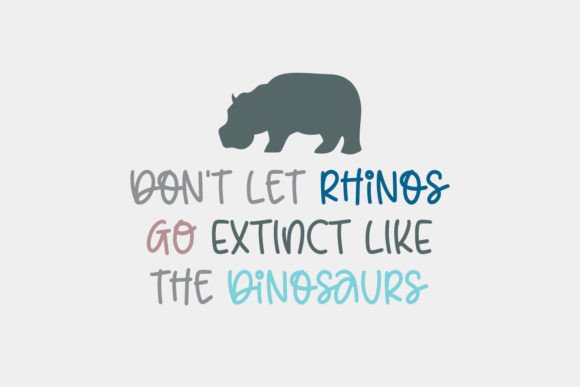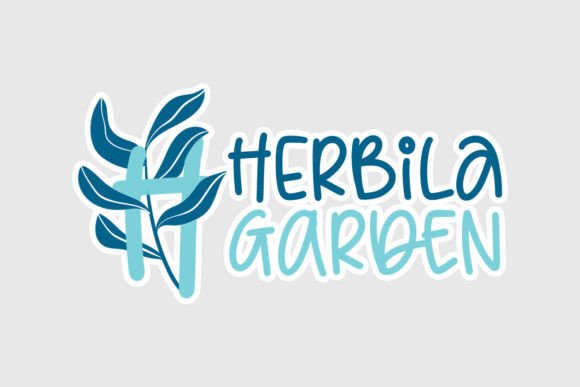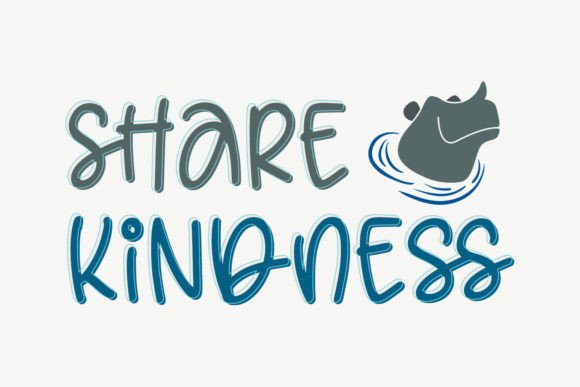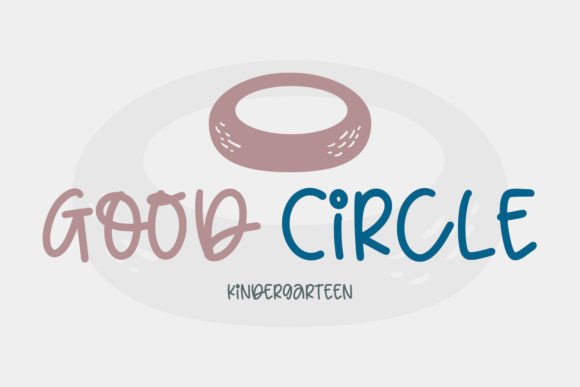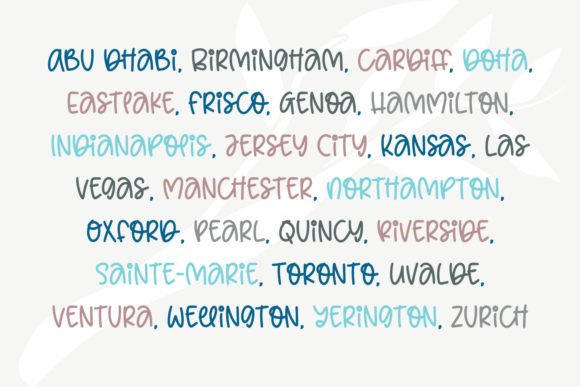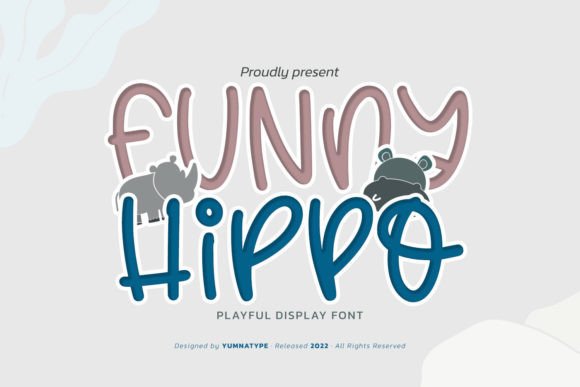
Introducing Funny Hippo: The Playful Font That’s Making Waves in Design
Are you tired of using the same old fonts in your designs? Look no further than Funny Hippo, a casual display font that’s sure to add a touch of whimsy to your projects. With its smooth, round, curvy accents and dynamic lines and angles, Funny Hippo is the perfect choice for designers and crafters looking to add some personality to their work.
The Characteristics of Funny Hippo
So, what makes Funny Hippo so special? For starters, its smooth, round, curvy accents give it a friendly and approachable feel that’s perfect for designs that need to be fun and engaging. The dynamic lines and angles add a sense of energy and movement, making Funny Hippo a great choice for projects that need to grab attention. And with various letter proportions, Funny Hippo has a unique and original look that’s sure to set it apart from other fonts.
Funny Hippo is a versatile font that’s perfect for a wide range of design projects. Whether you’re a professional designer or a crafter looking to add some personality to your handmade goods, Funny Hippo is a great choice. Its casual, display style makes it perfect for use in titles, headings, and other large-format text, while its smooth, curvy accents make it a great choice for use in logos, branding, and other visual identity projects.
What Can You Use Funny Hippo For?
The possibilities are endless when it comes to using Funny Hippo in your designs. Here are a few ideas to get you started:
• Party invitations and decorations: Add a touch of whimsy to your party invitations and decorations with Funny Hippo. Its fun, playful style is perfect for kids’ birthday parties, baby showers, and other celebrations.
• Branding and logos: Use Funny Hippo to create a unique and memorable logo for your business or brand. Its smooth, curvy accents make it a great choice for use in food, fashion, and lifestyle branding.
• Social media graphics: Add some personality to your social media graphics with Funny Hippo. Its dynamic lines and angles make it a great choice for use in Facebook posts, Instagram stories, and other social media graphics.
• Handmade goods: If you’re a crafter or maker, Funny Hippo is a great choice for adding a personal touch to your handmade goods. Use it to create custom labels, packaging, and other branding elements that will make your products stand out.
Why Choose Funny Hippo?
So, why choose Funny Hippo over other fonts? Here are a few reasons:
• Unique and original: Funny Hippo has a unique and original look that’s sure to set it apart from other fonts. Its smooth, curvy accents and dynamic lines and angles make it a great choice for designers and crafters looking to add some personality to their work.
• Versatile: Funny Hippo is a versatile font that’s perfect for a wide range of design projects. Whether you’re working on a logo, a party invitation, or a social media graphic, Funny Hippo is a great choice.
• Easy to use: Funny Hippo is easy to use and pairs well with a wide range of other fonts. Its smooth, curvy accents make it a great choice for use in titles, headings, and other large-format text.
Font Name Funny Hippo Font
Author Yumna_Type
In conclusion, Funny Hippo is a playful and versatile font that’s perfect for designers and crafters looking to add some personality to their work. With its smooth, round, curvy accents and dynamic lines and angles, Funny Hippo is sure to make a statement in any design project. So why not give it a try and see what kind of creative possibilities you can come up with?